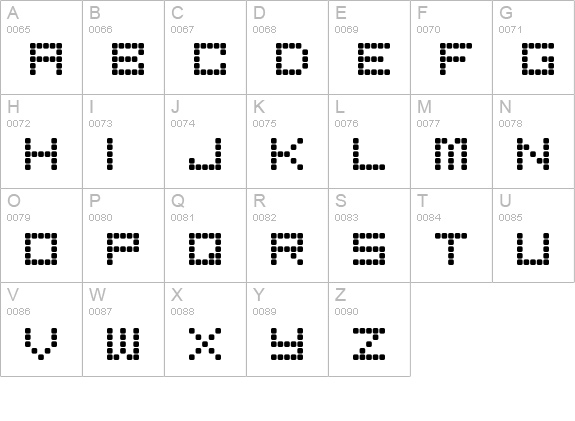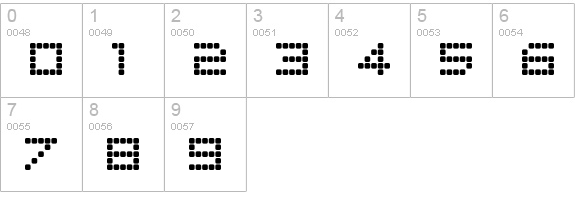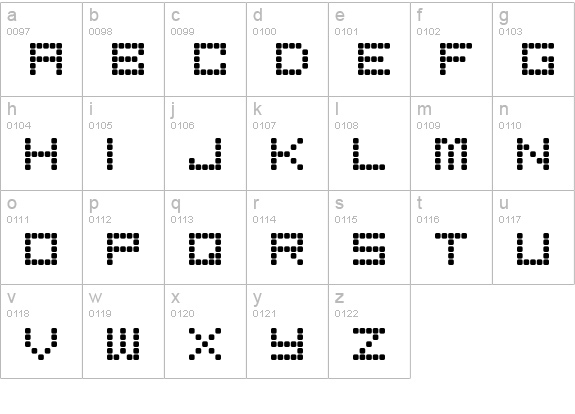
Bored-Regular is the standard, neutral variant in the Bored typeface family \xE2\x80\x94 well suited to general body text, paragraphs, and standard typographic work.
Introducing Bored-Regular font, the perfect blend of simplicity and versatility. This font is designed to capture attention with its clean lines and contemporary style, making it suitable for a wide range of creative projects. Whether you're designing a logo, creating a website, or crafting eye-catching promotional materials, Bored-Regular font will effortlessly elevate your designs to new heights. With its subtle yet captivating details, this font adds a touch of elegance and sophistication to any project. Its sleek and modern look ensures legibility across various mediums, ensuring your message is communicated effectively. Bored-Regular font is carefully crafted to be visually appealing while maintaining optimum readability, making it an ideal choice for both print and digital applications. But what sets Bored-Regular font apart is its accessibility. This font is freely available to download at FontsMarket.com, allowing you to bring your creative vision to life without any financial limitations. Say goodbye to expensive font licenses and hello to endless possibilities. Whether you're a professional designer or an aspiring artist, Bored-Regular font ensures that creativity knows no bounds. So, why wait? Unleash your imagination and explore the endless design possibilities with Bored-Regular font. Download it today from FontsMarket.com and let your creativity soar. Embrace the freedom to create stunning visuals that captivate, inspire, and leave a lasting impression. Bored-Regular font is your gateway to design excellence, and it's just a click away.